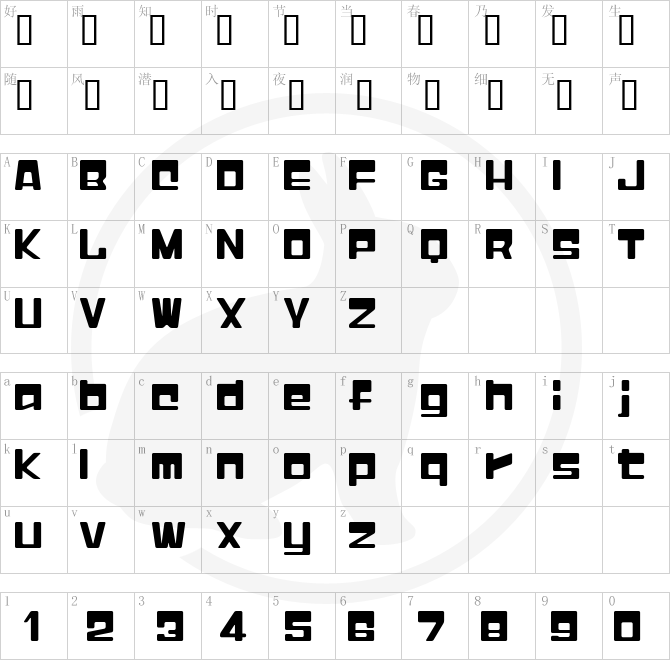
- Font Name:I2Macross
I2Macross-E.ttf is a very beautiful artistic font, I2Macross-E.ttf is widely used in the design and printing of various books and pictures,I2Macross-E.ttf has a strong visual impact,I2Macross-E.ttf is a commonly used font in newspapers, magazines and books, and is used in posters, e-commerce Poster design, store design, logo design, font design and other fields.I2Macross-E.